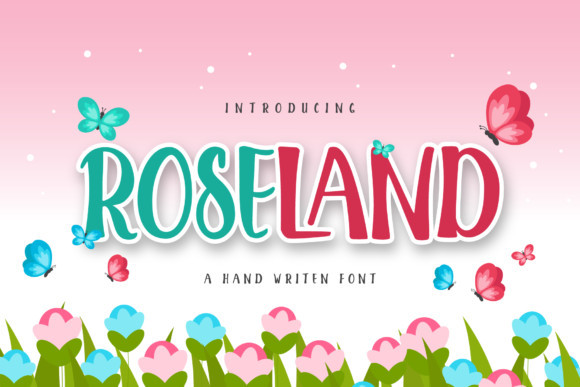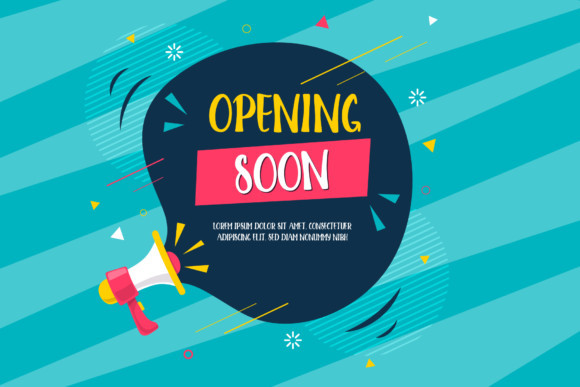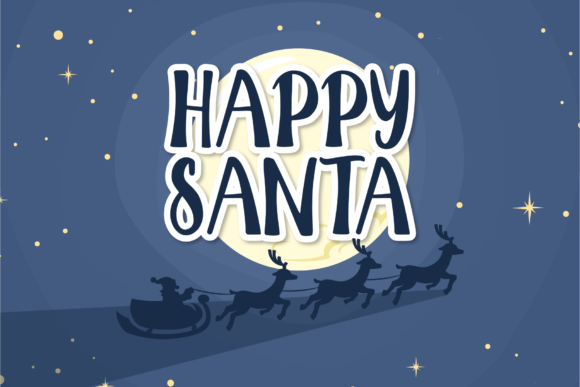
ROSELAND Font
Roseland is a bold and cute display font with a nature theme. Add it to your Instagram fonts and turn any creative idea into a true piece of art!